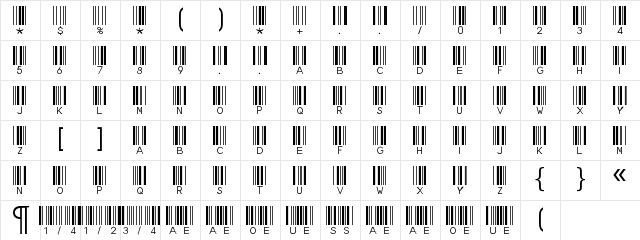
Bar-Code 39 lesbar Regular
Bar-Code 39 lesbar brings the precise, column-aligned rhythm of monospaced typography to designs that value technical clarity and systematic order.
Well-suited to data-driven dashboards, coding tutorials, and any design that wants to reference the world of programming.